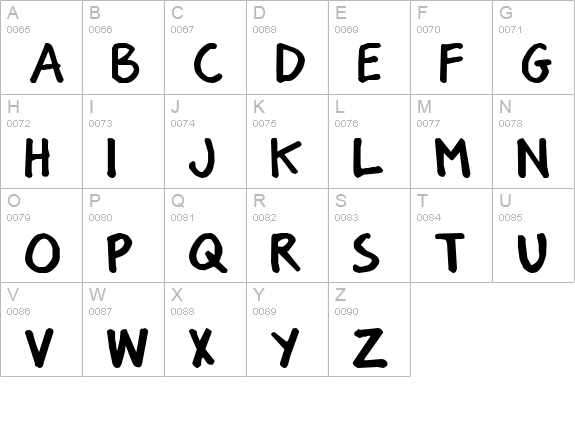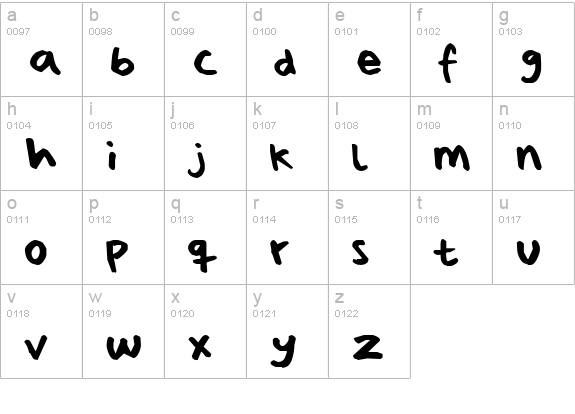
PizzaDudesHandwriting Font Details
Introducing PizzaDudesHandwriting, a delightful and quirky font that will add a touch of fun and personality to any design project. With its playful strokes and lively curves, this font captures the essence of casual handwriting, making it perfect for a wide range of applications. Whether you're designing a menu for a trendy pizzeria, creating eye-catching posters for a school event, or crafting personalized invitations for a birthday party, PizzaDudesHandwriting is the ideal choice to bring your creative vision to life. But what sets PizzaDudesHandwriting apart from other fonts? It's the fact that it is completely free! That's right, this font can be freely downloaded at FontsMarket.com, allowing you to enjoy its unique charm without breaking the bank. With PizzaDudesHandwriting, you have the freedom to experiment and explore endless design possibilities. Its versatility allows it to adapt effortlessly to various themes and styles, adding a touch of whimsy and originality to your projects. The legibility of PizzaDudesHandwriting is also worth noting. Despite its playful appearance, this font maintains excellent readability, ensuring that your message is conveyed effectively to your audience. So why wait? Download PizzaDudesHandwriting today from FontsMarket.com and unleash your creativity with this extraordinary font. Whether you're a professional designer or a passionate hobbyist, this font will undoubtedly become an invaluable addition to your typographic arsenal. Remember, PizzaDudesHandwriting is not just a font; it's an invitation to embrace the joy of self-expression. Let your imagination run wild and make every design project a memorable one with this free and fabulous font.